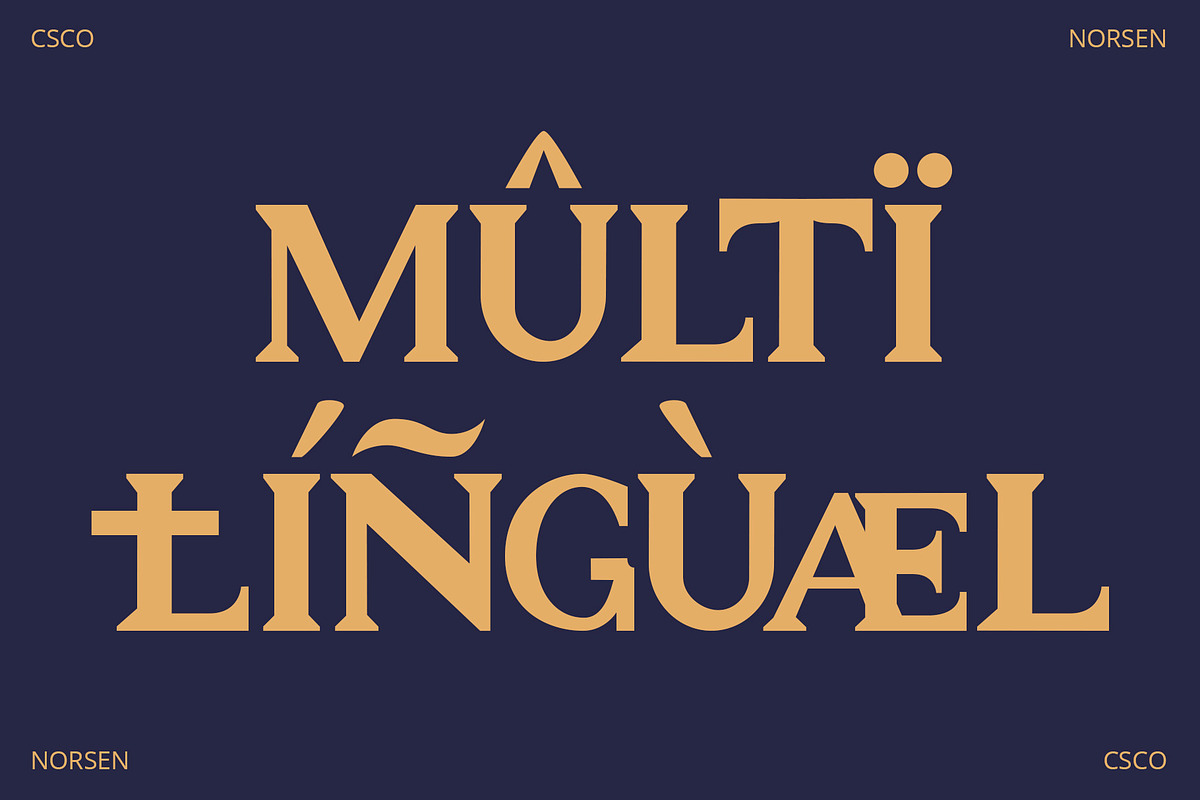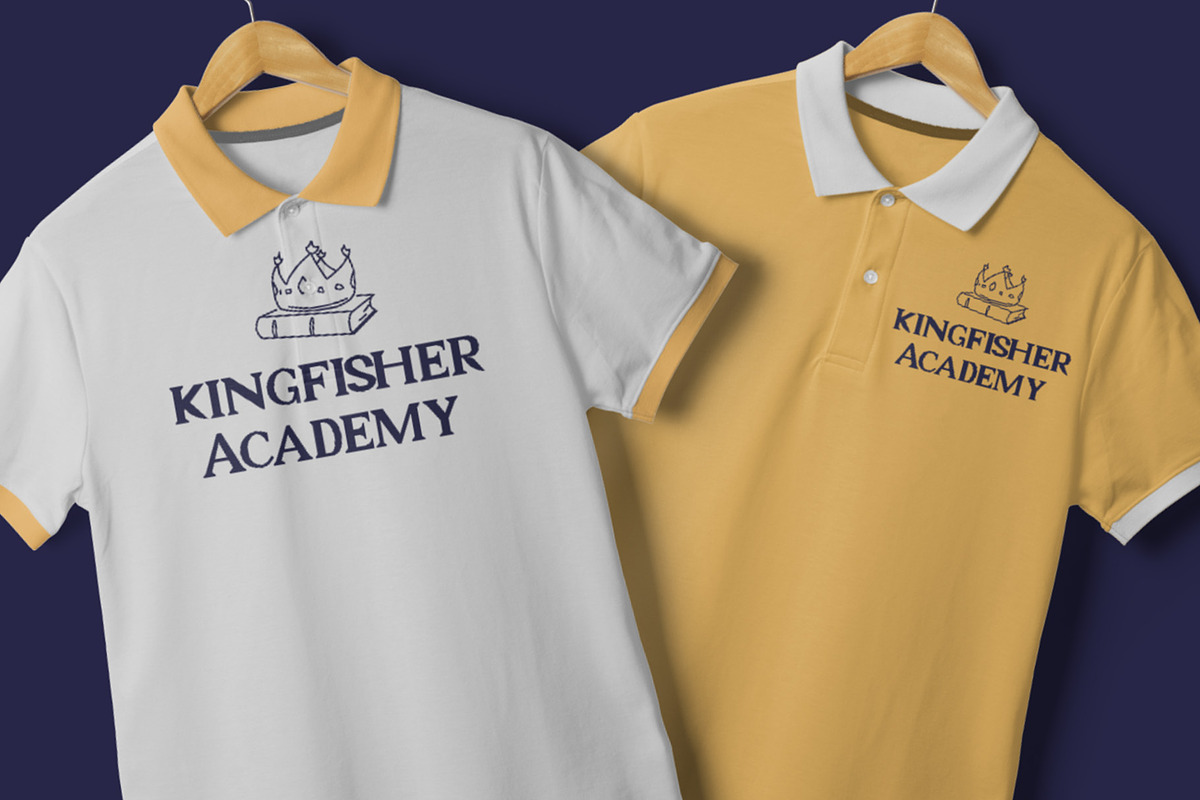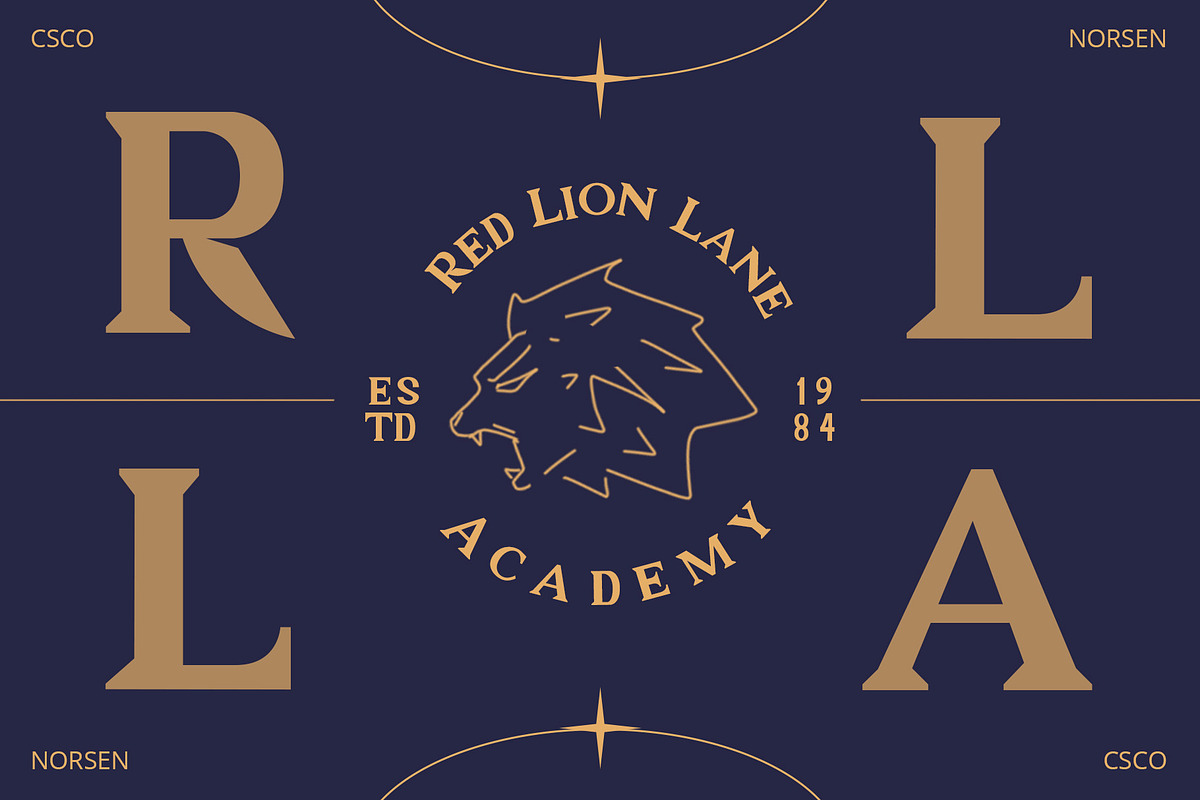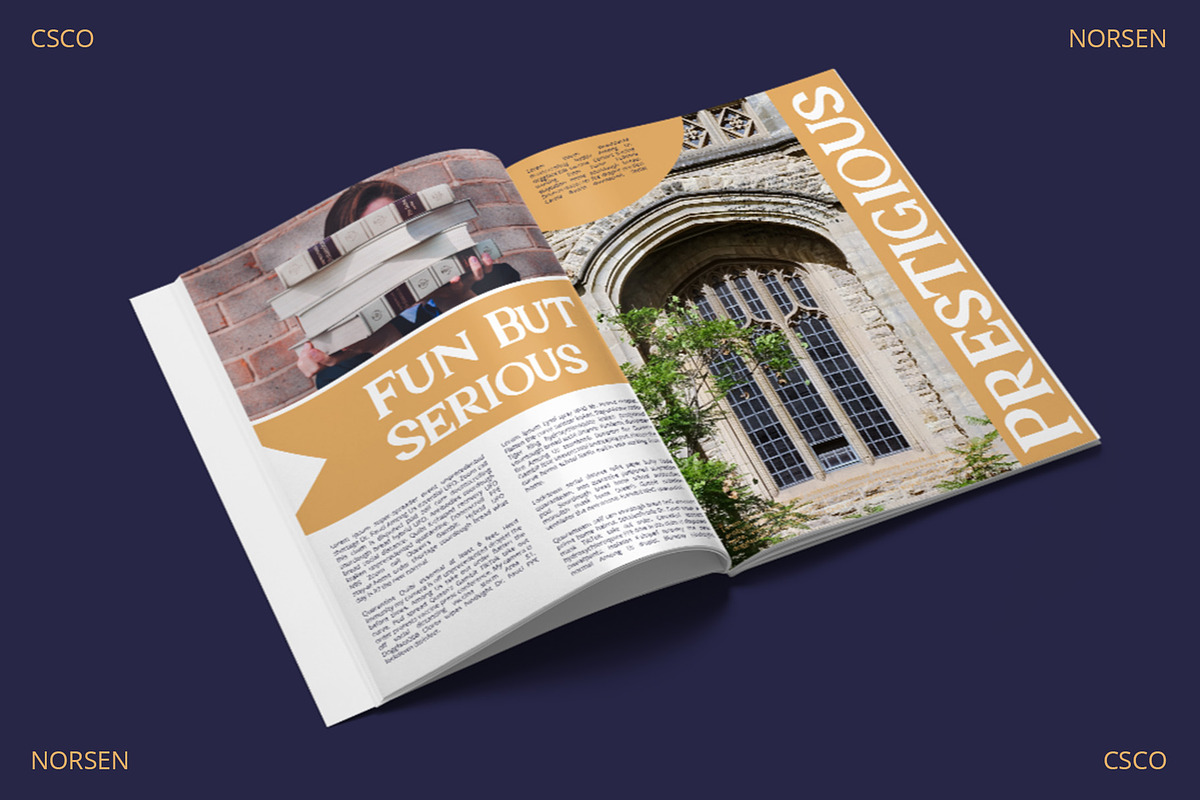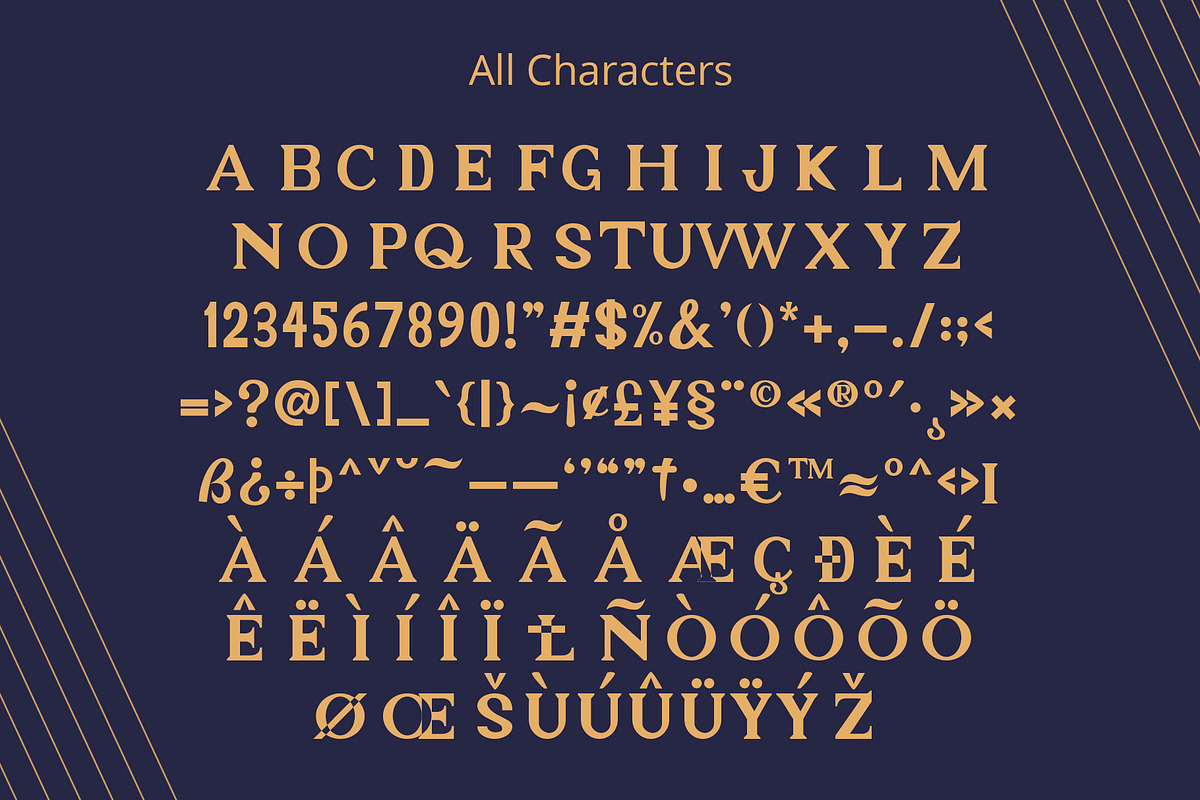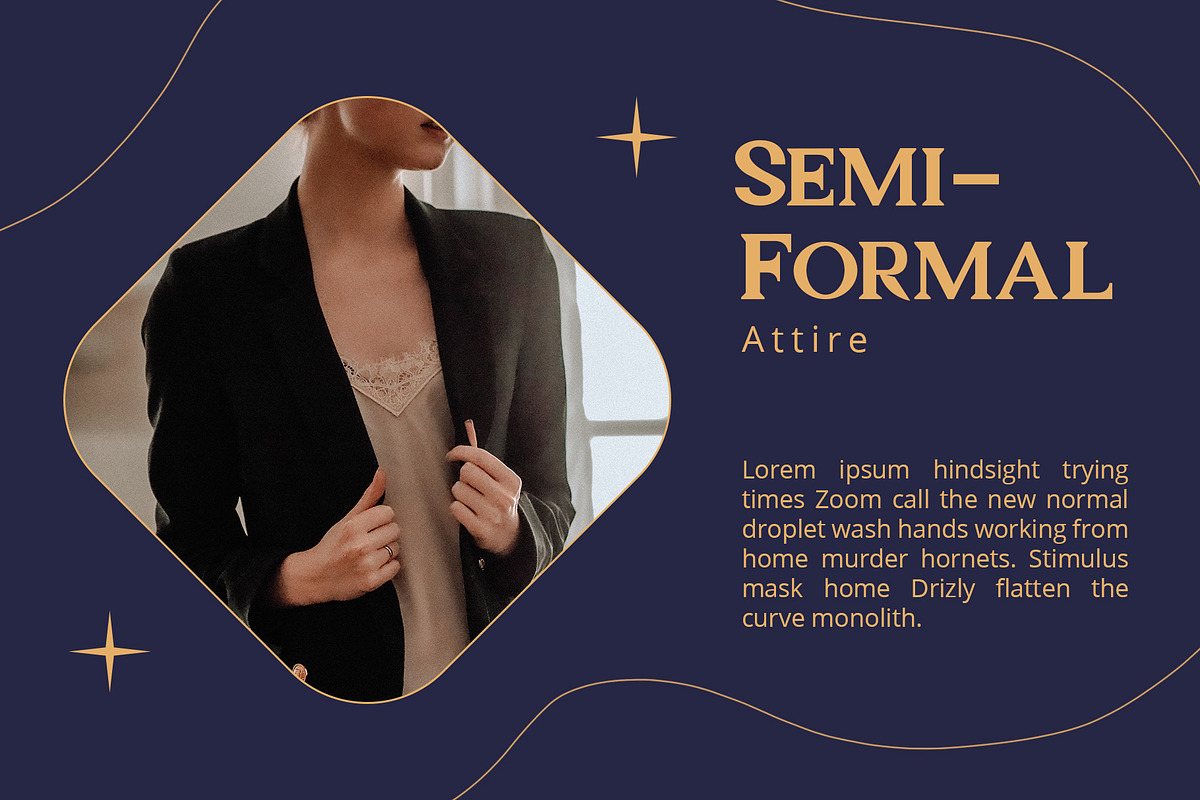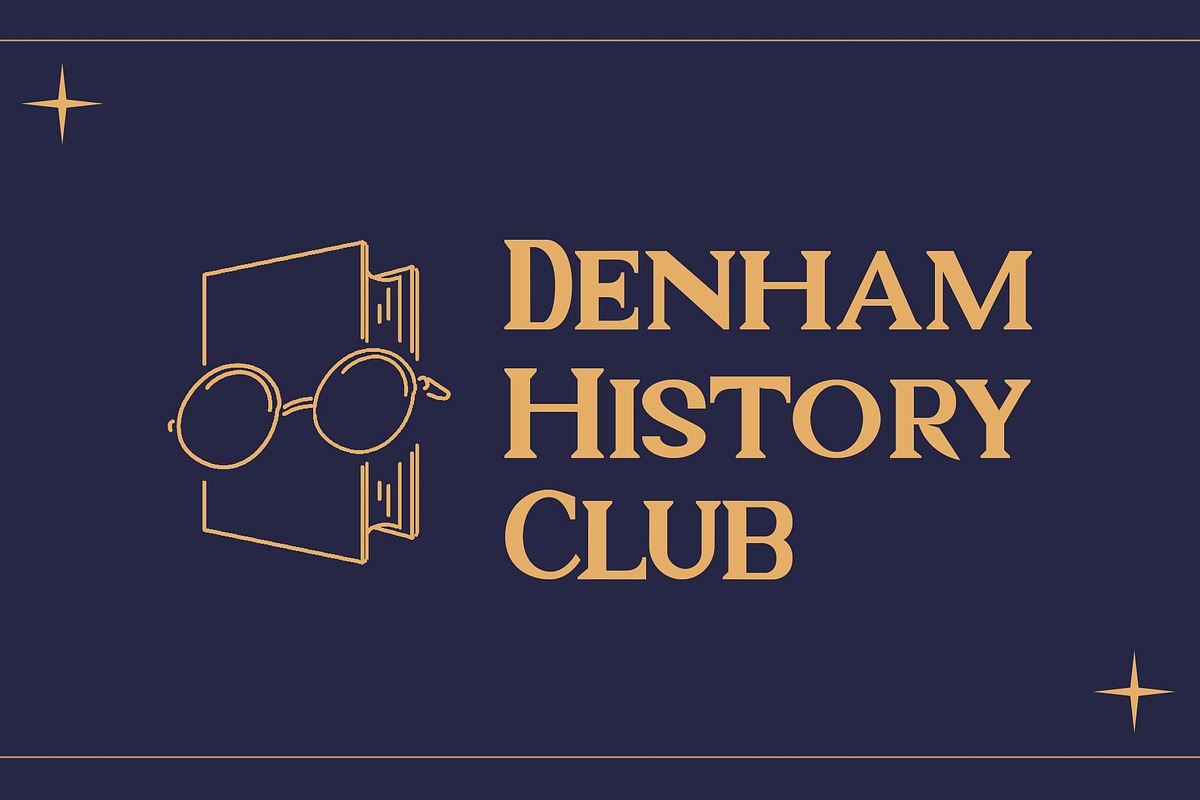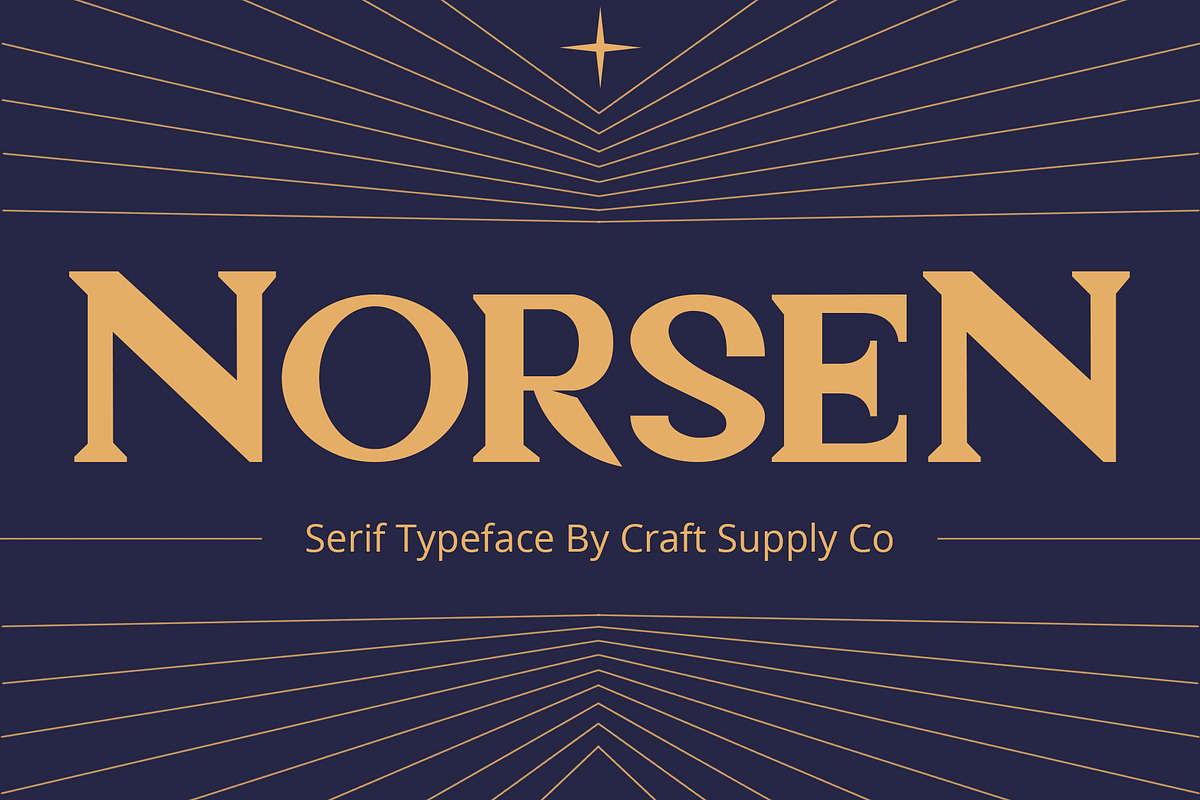
Norsen – Classic Serif
Introduction Meet Norsen – Classic Serif, where the vintage aura intertwines seamlessly with modern sophistication. Initially, its presence elevates designs with a unique classical elegance.
Embodying Versatility Notably, Norsen is versatile, suiting various design necessities effortlessly. Also, it easily molds itself, fitting perfectly into different creative realms, ensuring each design shines uniquely.
Classical Elegance Immersed in a classical charm, every letter in this font tells a story. Additionally, its serif details bring stories and messages to life with grace and depth, enhancing readability and visual appeal.
Adaptability Norsen adaptability shines, becoming a go-to choice for diverse projects. Equally important, it holds a striking balance of tradition and modern aesthetics, making it universally appealing.
Ease and Accessibility Furthermore, the font ensures simplicity and ease of use, making it accessible for all users. Therefore, it invites every creator, from beginners to experts, to explore its vast creative potential.
Conclusion In conclusion, Norsen – Classic Serif is a journey through timeless elegance and versatile design possibilities. Ultimately, its presence will impeccably enhance and refine your creative projects.